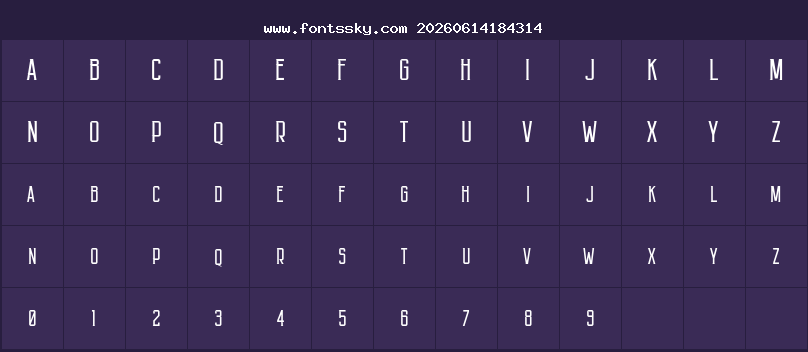
Angkasa Preview
• Font Name: Angkasa
• Full Font Name: Angkasa Regular
• Designer: Rokoe Type
About Angkasa.ttf
Angkasa.ttf is a modern, elegant sans-serif font designed for ultimate readability and visual harmony. Perfect for branding, headlines, web design, and print materials.